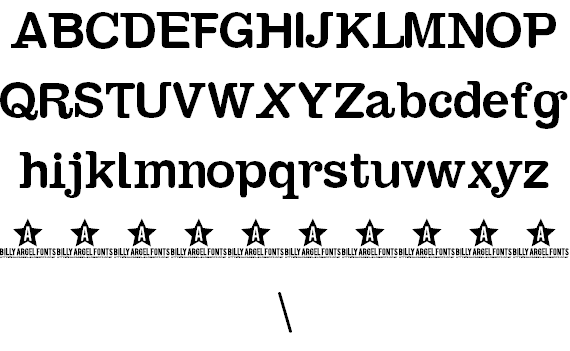
Free SAMBAHOLLYC Font
Featuring the adorable free sambahollyc font. Font Space has created this amazing and beautiful free font. Amaze your fellow designers and create stunning designs with this fancy font.